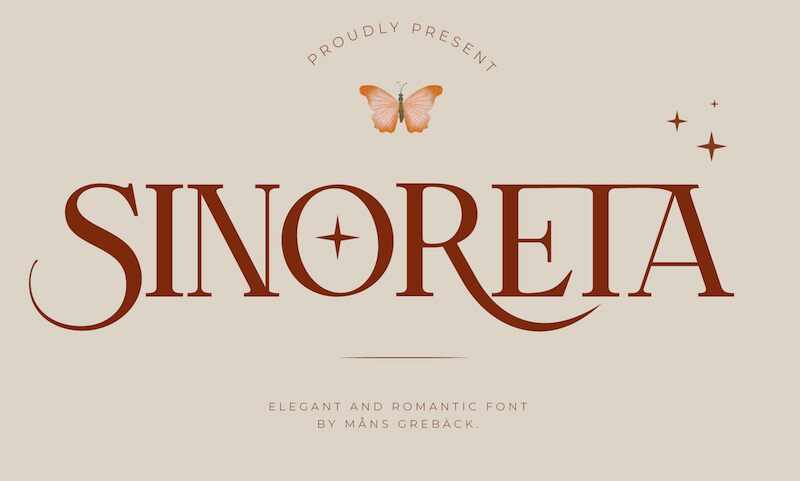
Sinoreta, the brainchild of renowned font designer Mans Greback, is an elegant serif font that exudes sophistication and grace. Its semi-bold weight adds a subtle hint of confidence to any project it graces. Perfect for wedding invitations, fashion magazines, or high-end branding projects, Sinoreta's timeless style will elevate any design to new heights. With its clean lines and classic aesthetics, this font is suitable for a wide range of projects that require a touch of elegance and refinement. Whether you're creating a logo, designing packaging for luxury goods or crafting a website for high-end services – Sinoreta won't disappoint!